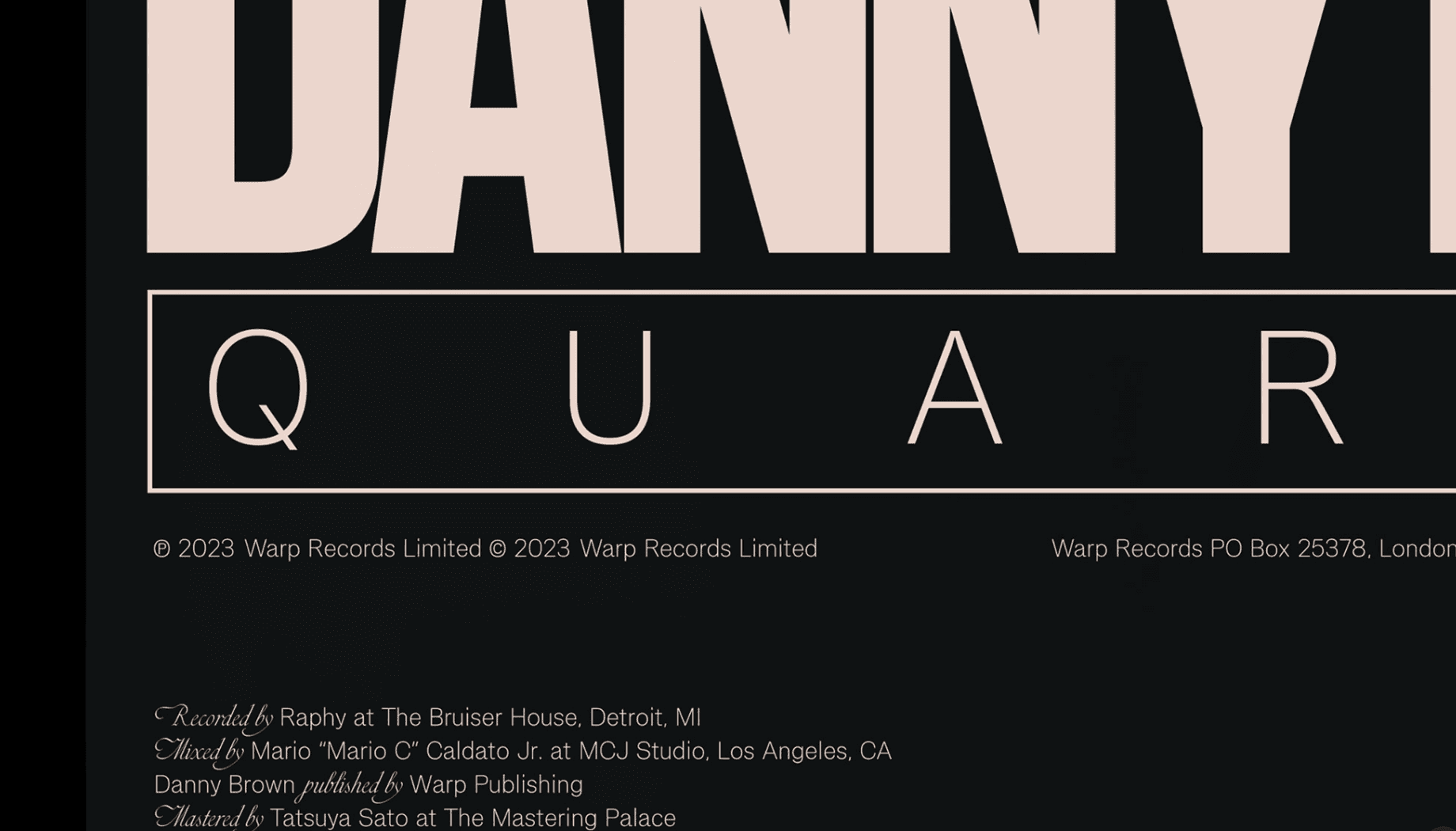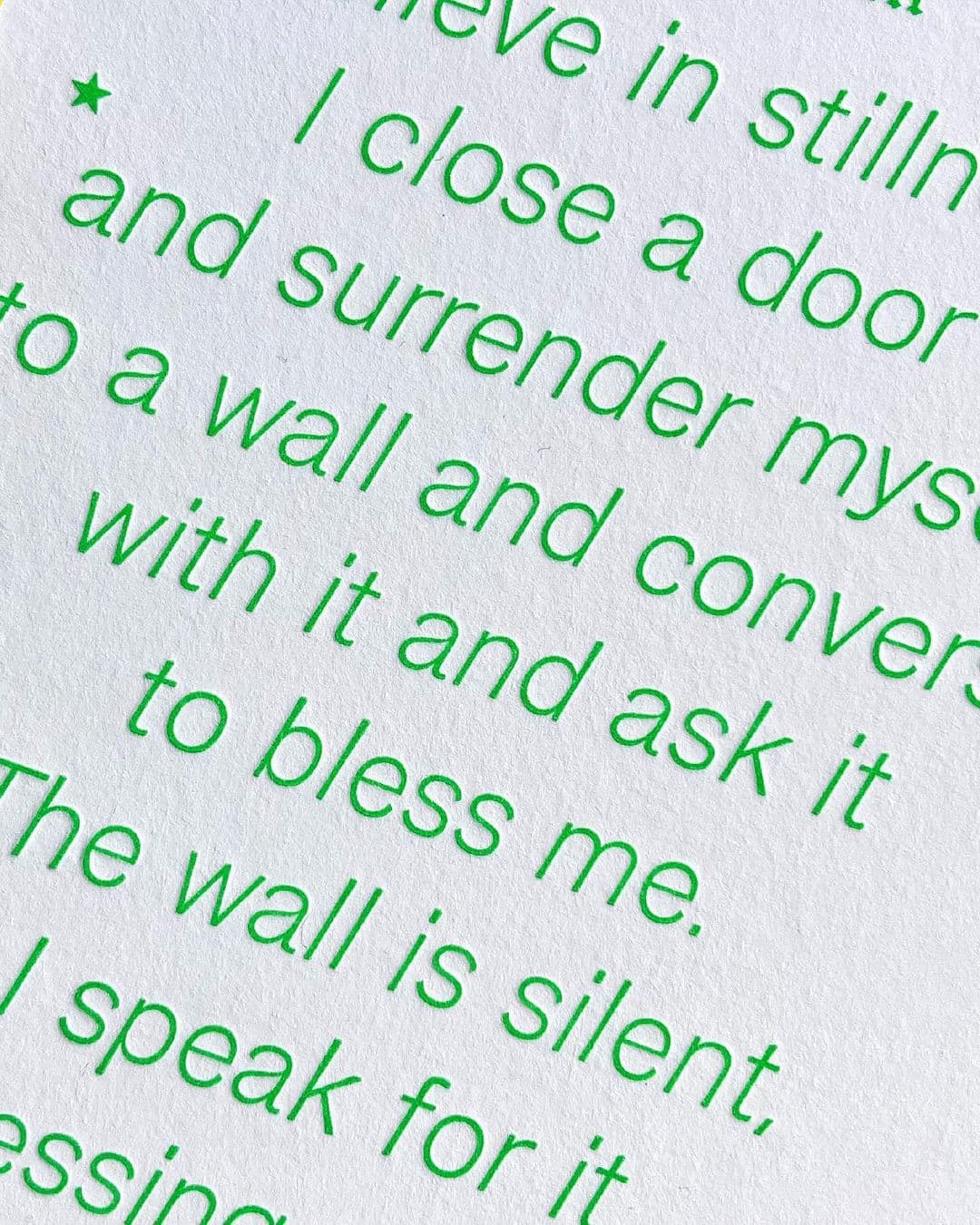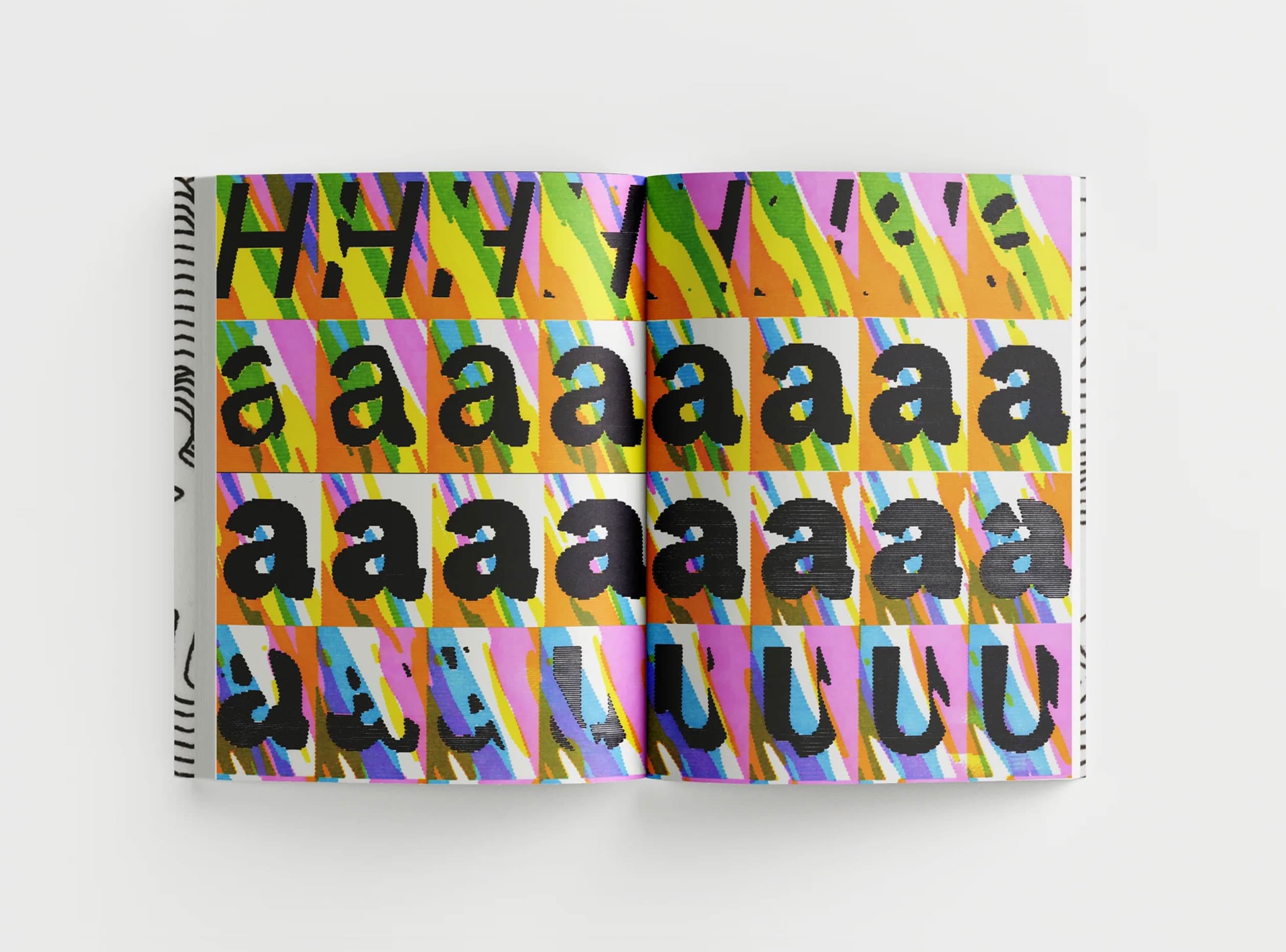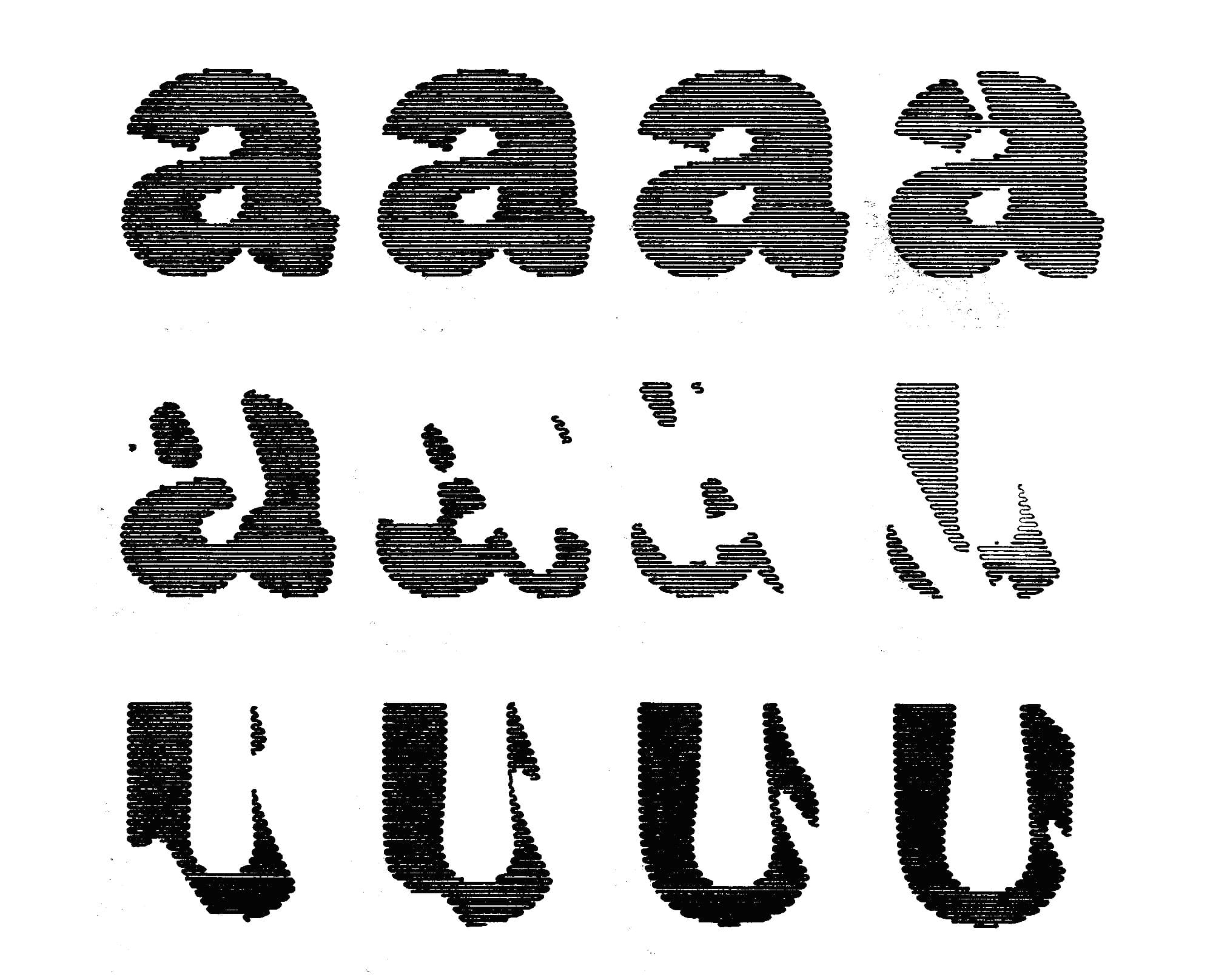
Hauss
Introducing Hauss & Raum, a sans-serif work-horse and experimental display duet by Justin Sloane & Huw Williams. Hauss & Raum define distinctive polarities from the purely utilitarian to the bombastically deontological–a sturdy design tool and an exercise in psychedelic retrofuturism. While Hauss is Sloane’s meticulous creation, crafted over years of trial and refinement for his own graphic design practice, Raum represents a sort of destruction–pushing the contemporaneous “display inktrap” motif into uncharted territory.
In use as body text for Danny Brown - Quaranta, Warp Records, 2023.
Thin Italic as letterpressed postcard for Day Acupuncture, 2023.